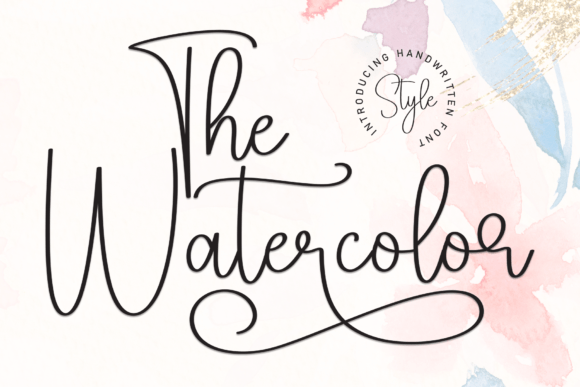
Dive into the world of nostalgia and charm with The Watercolor Font, a beautiful handwritten font that captures the essence of vintage aesthetics. Created by the talented andikastudio, this script font is a true gem for designers seeking a touch of timeless elegance in their creations.
With its graceful curves, fluid strokes, and delicate details, The Watercolor Font exudes a sense of warmth and personality that instantly captivates. Each letter is meticulously crafted to evoke the charm of handwritten notes, adding a personal touch to your designs that will resonate with your audience.
Step back in time and explore the possibilities of vintage-inspired branding, elegant logos, enchanting quotes, and captivating social media posts. The Watercolor Font seamlessly blends the beauty of the past with the demands of the present, offering a unique and versatile font that fits effortlessly into modern design trends.
Harness the power of The Watercolor Font to create designs that tell a story, designs that evoke emotions, and designs that leave a lasting impression. Whether you're crafting logos for small businesses, creating stunning posters for special events, or designing social media graphics that captivate audiences, this font is your perfect companion.
Unleash your creativity and let your imagination soar as you discover the endless possibilities of The Watercolor Font. Its timeless charm and modern appeal will elevate your designs to new heights, ensuring that your message resonates with audiences and your brand stands out from the crowd.